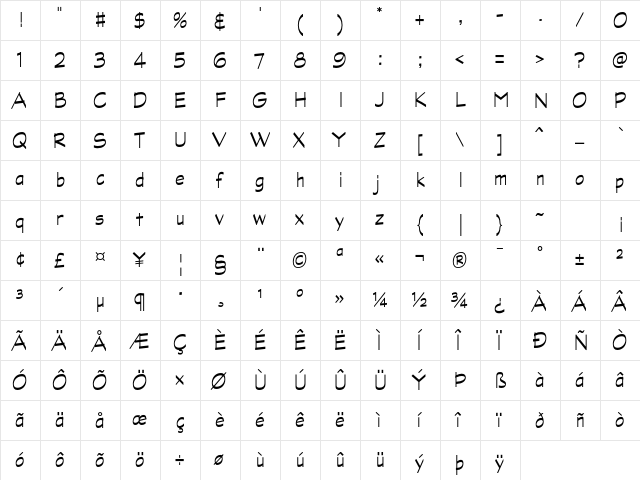
Graphite AT Condensed Regular Regular
Design Context for Graphite AT Condensed Regular Typeface
Graphite AT Condensed Regular is a composed and adaptable typeface that performs quietly and consistently across a wide range of design contexts. The condensed width makes it efficient for tight spaces without sacrificing legibility.